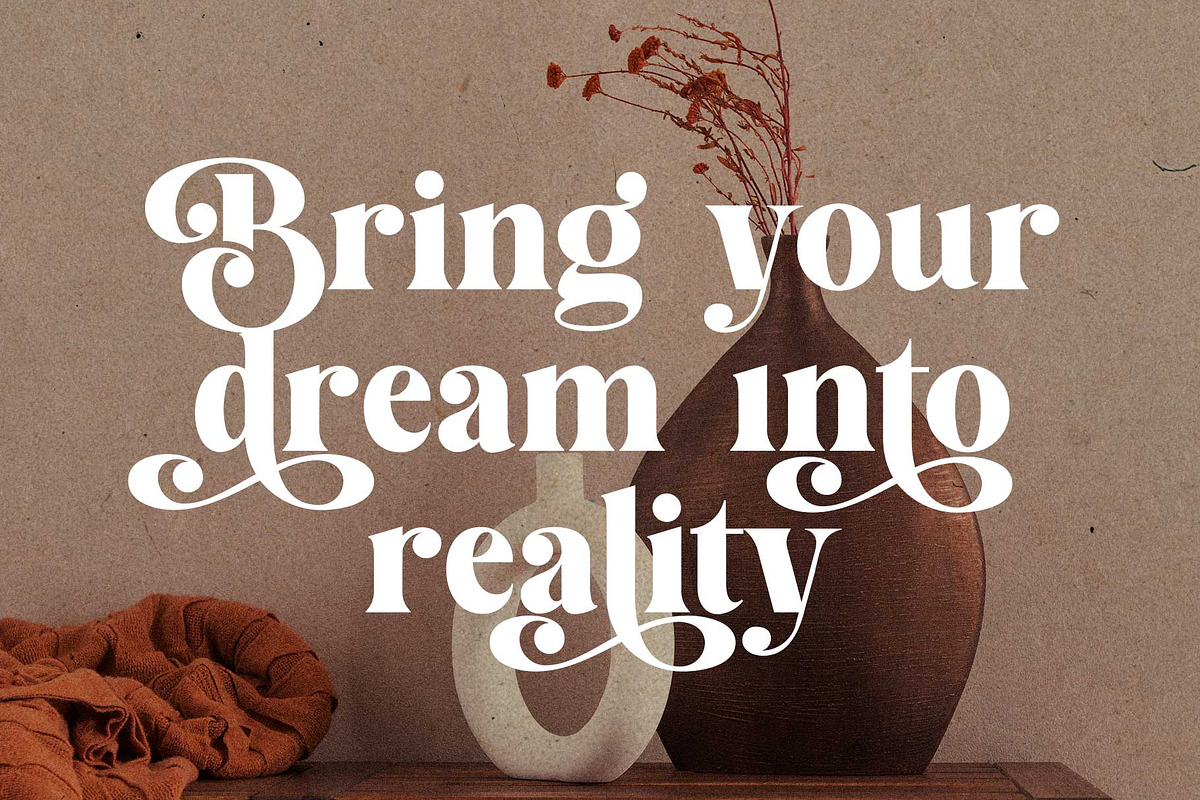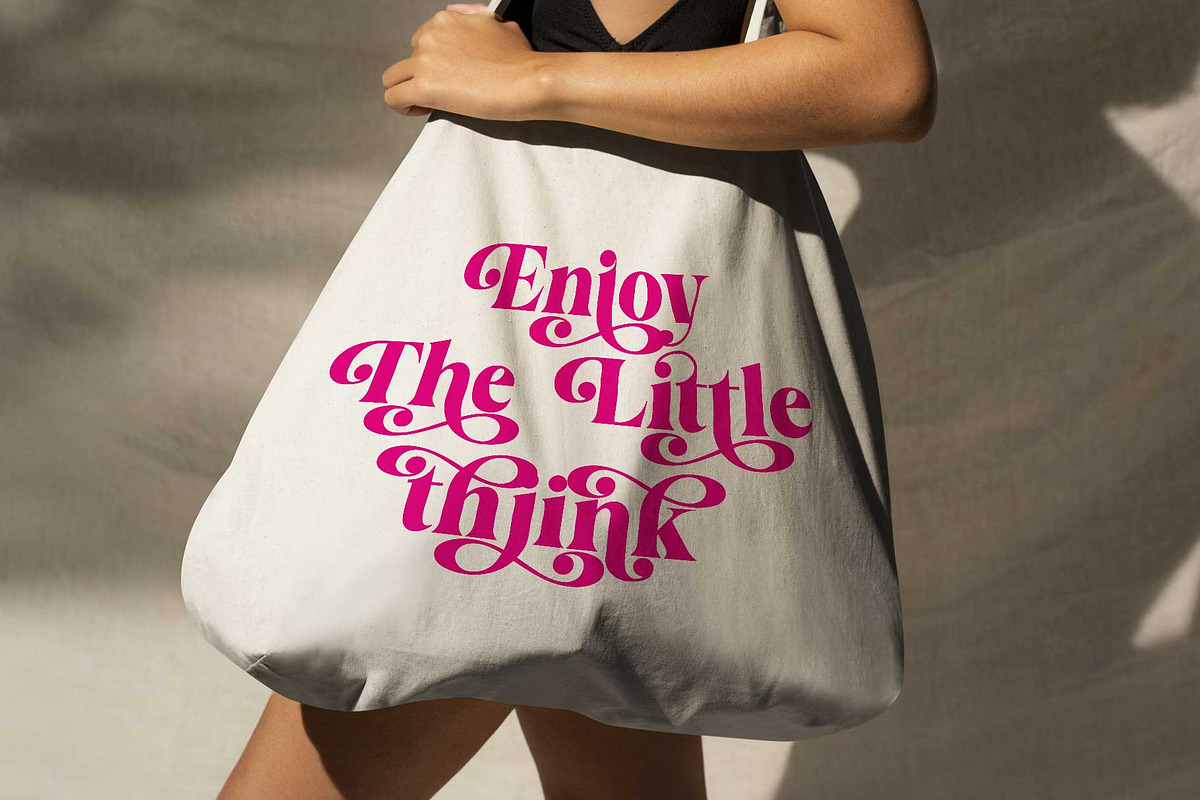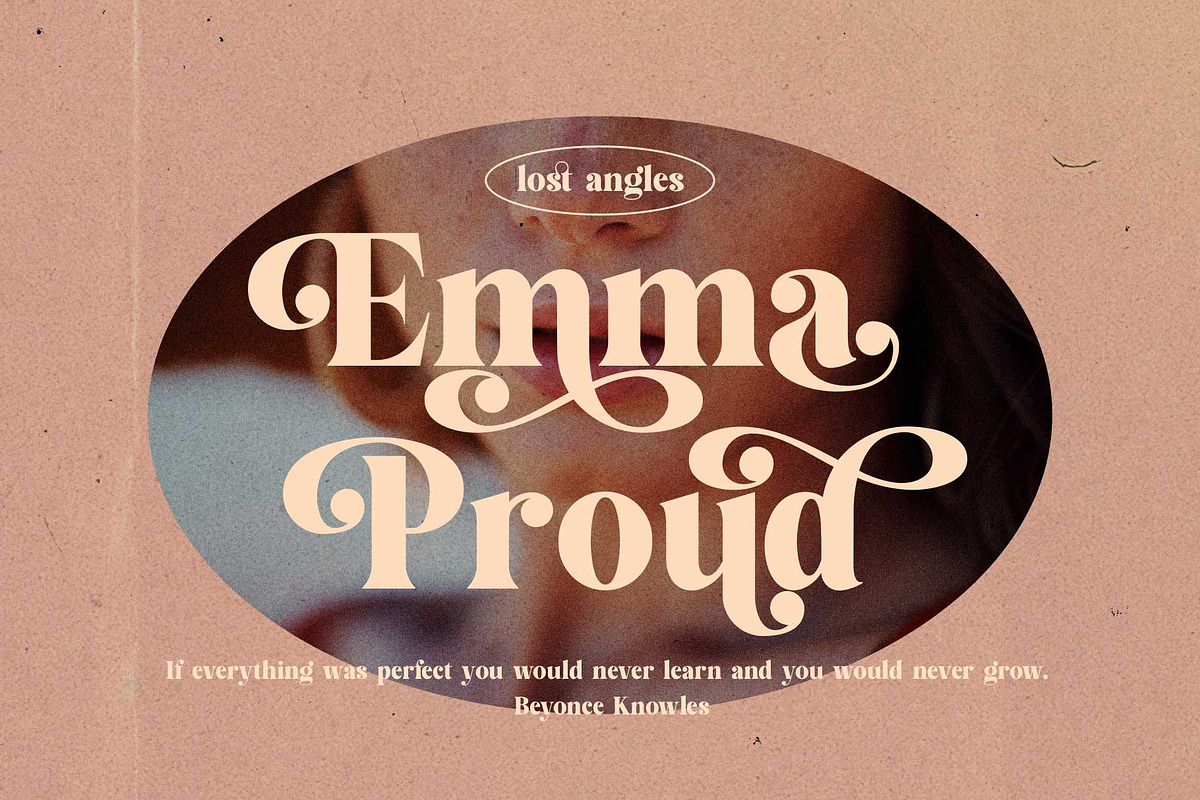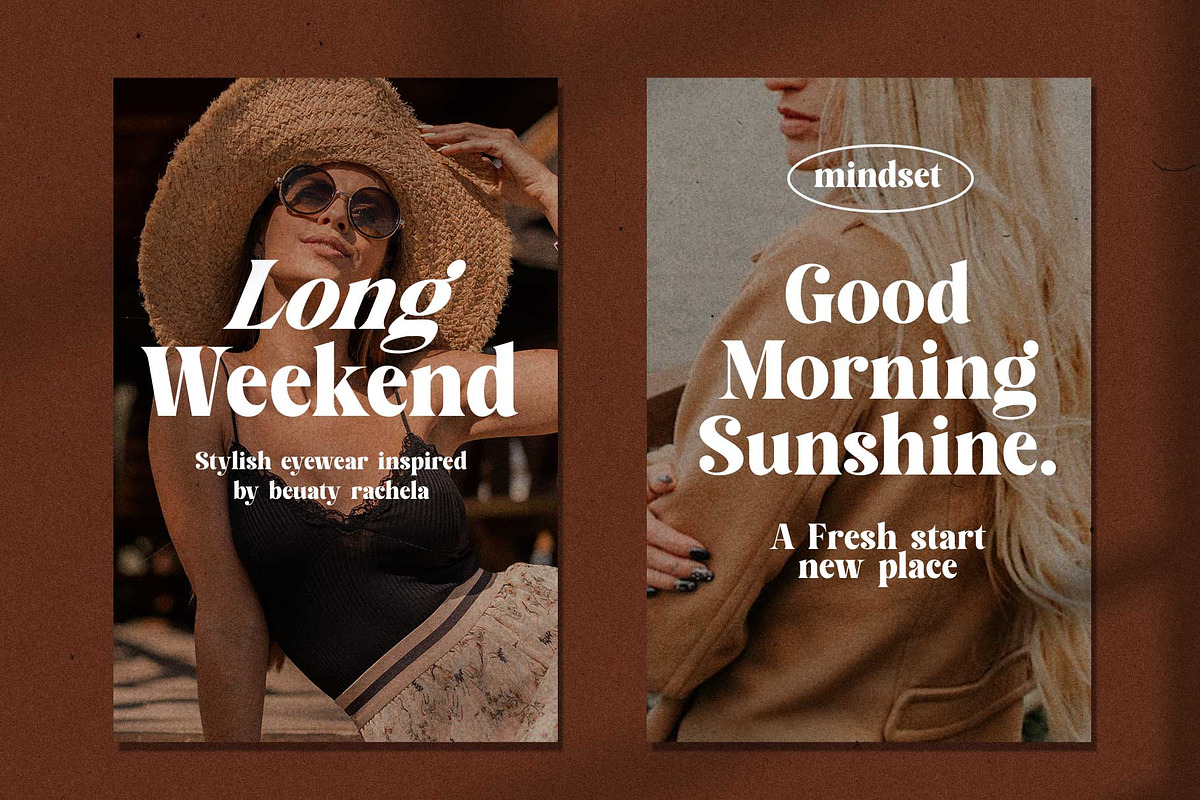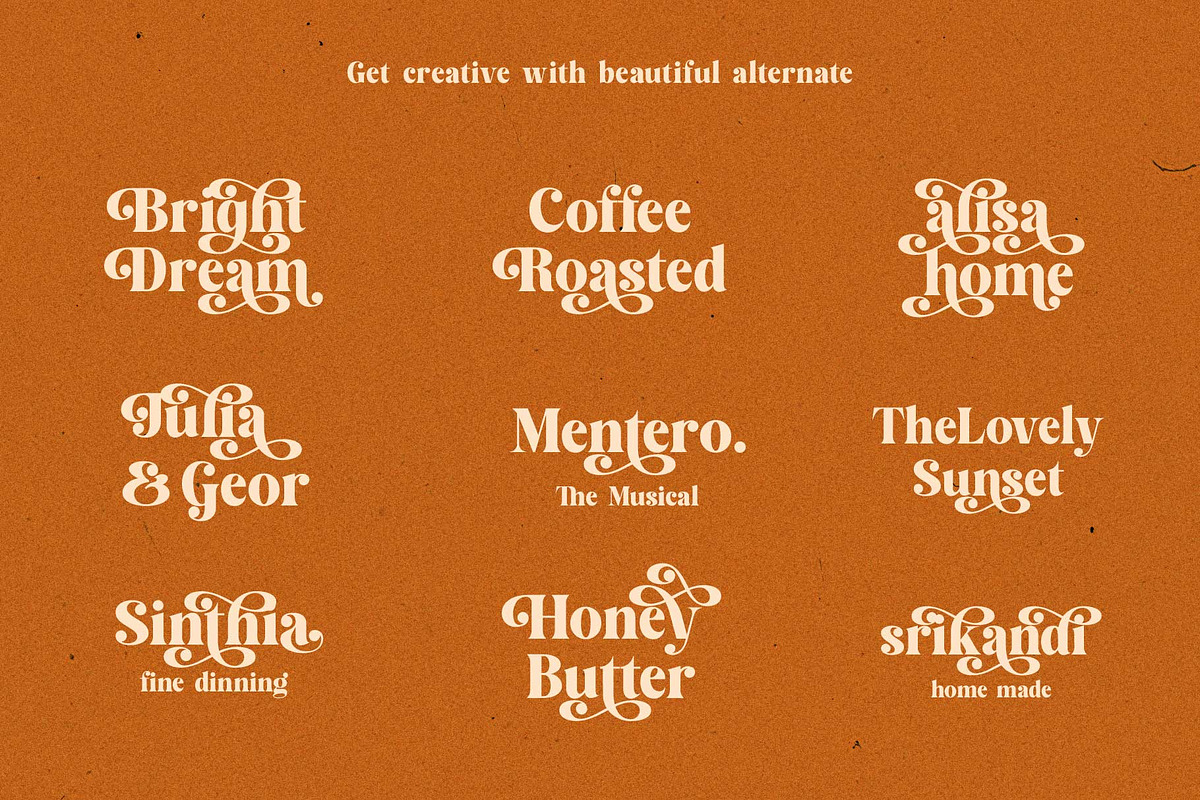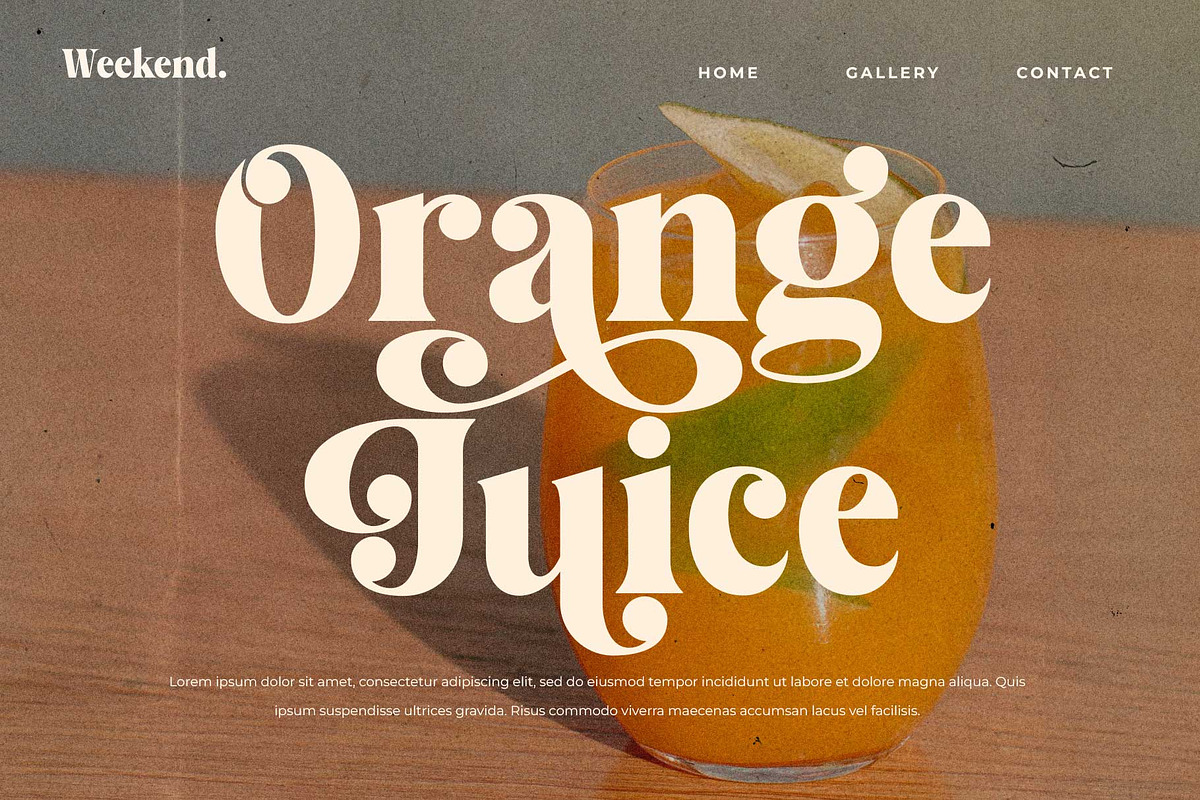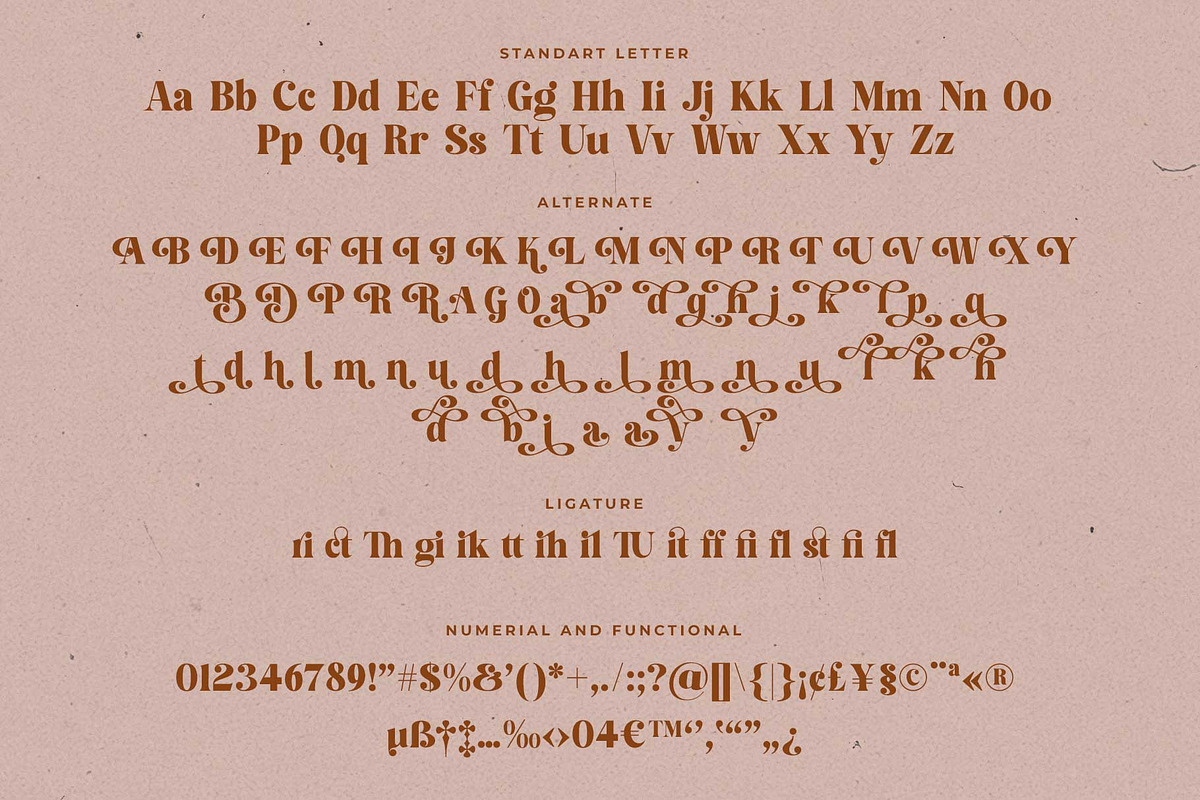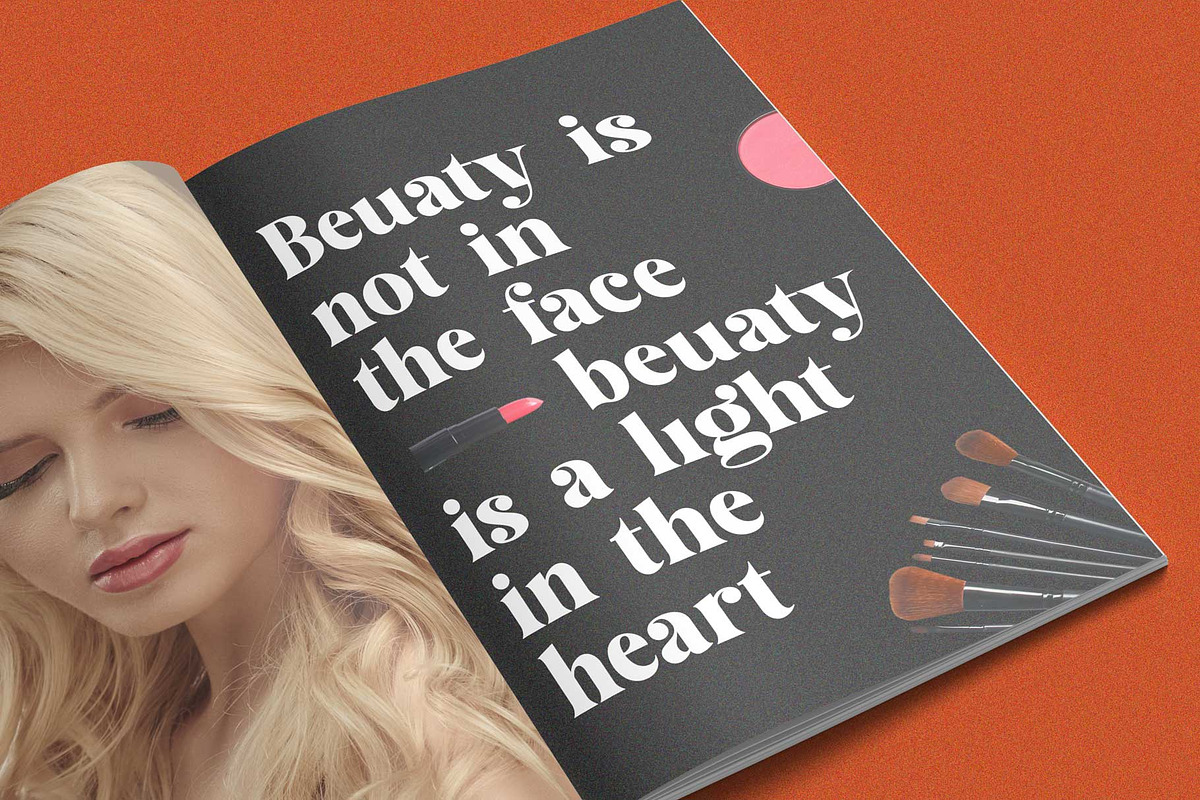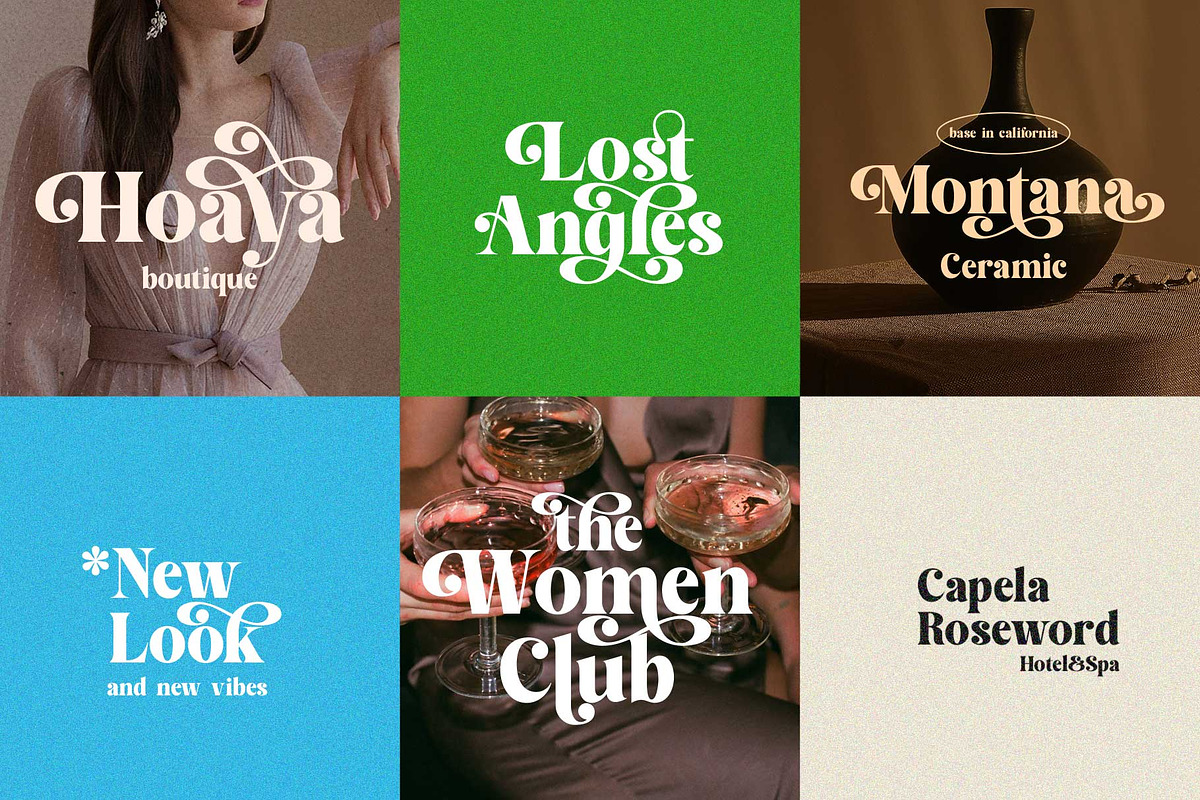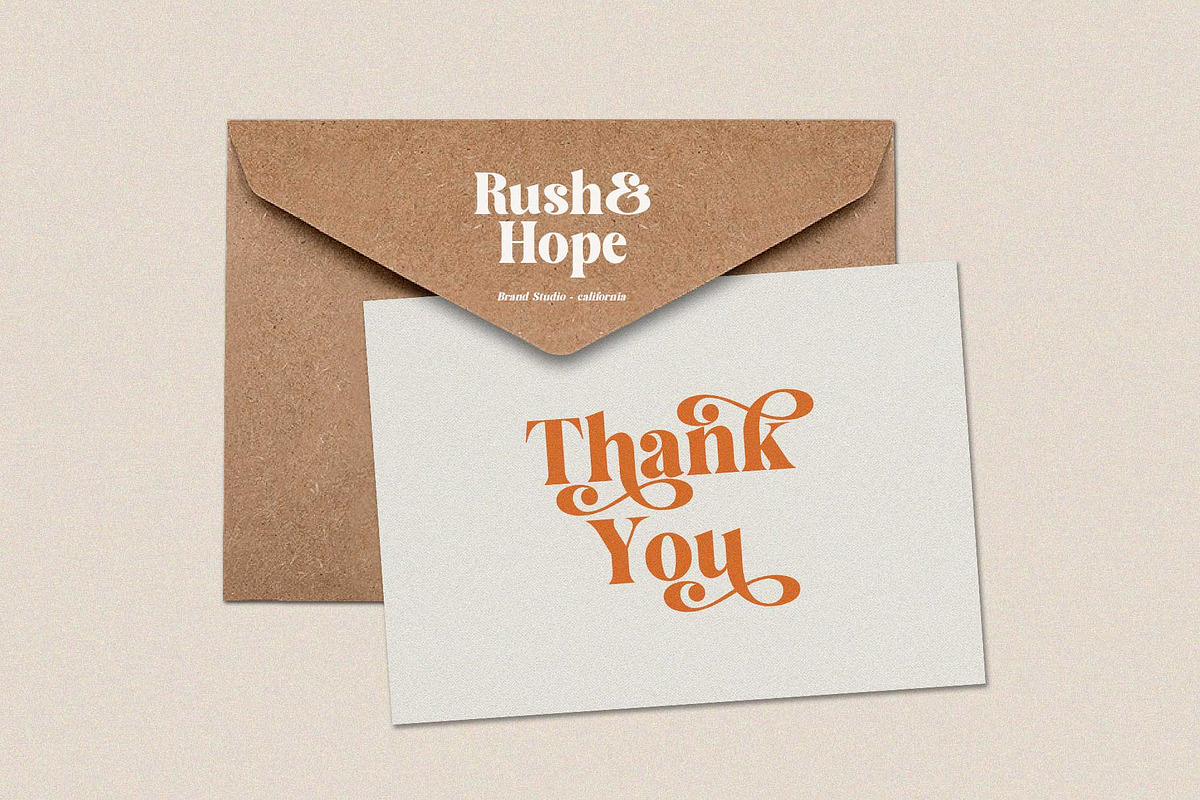
Beauty Rachela Beautiful Serif Font
Hi Ladies and Gentleman ! Proudly present beautiful vintage serif font called Beauty Rachela by rantautype.
Beauty Rachela is a beautiful font that bold curve make it look Unique, elegant, modern, and versatile serif Font. Come with more alternate and ligature you can mix and max to create a more stunning display.
Beauty Rachela - separate in reguler and italic, is a beautiful choice for any creative endeavor, creating elegant, modern, chic, lifestyle design such as logos, title, cover, branding, display and magazine, and more. Now you have more choice when using Beauty Rachela for typography.
Feautures:
- 2 Font ( reguler and italic )
- Standar character A-Z and a-z
- Alternate and Ligature
- Multilinggual support